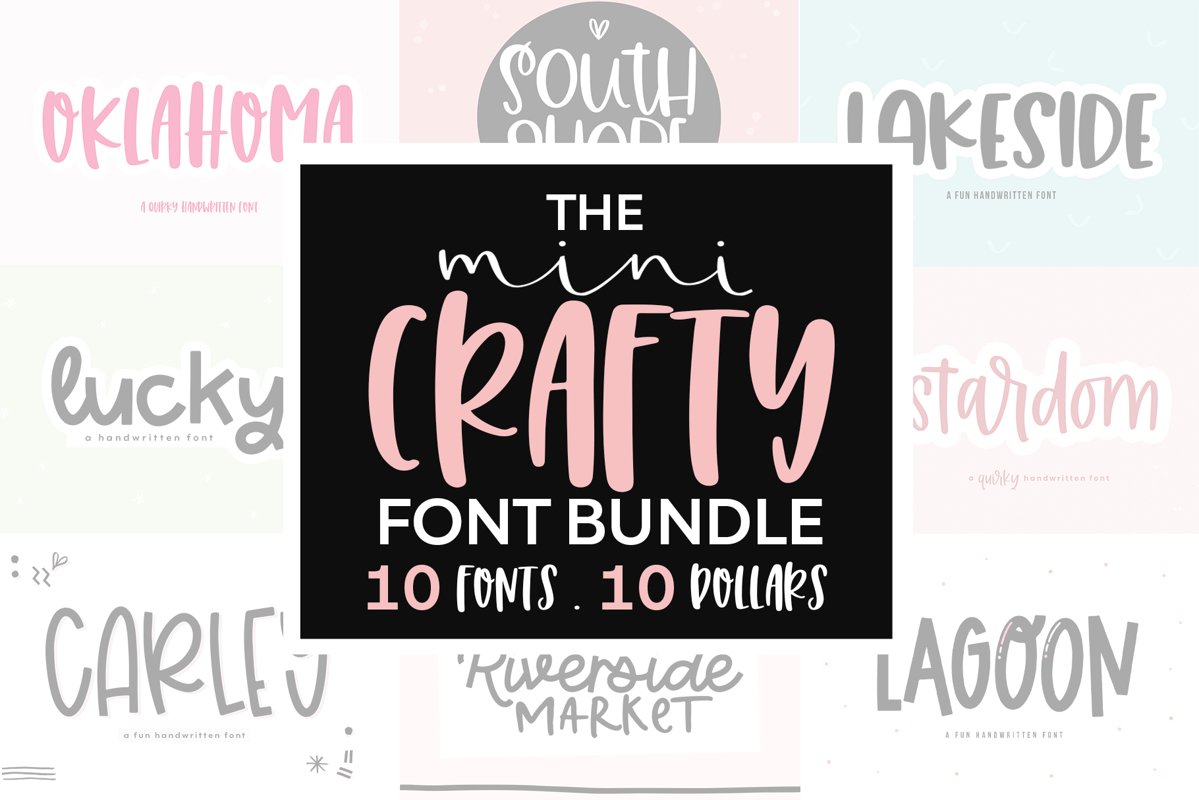
The Mini Crafty Bundle - 10 Fun & Quirky Fonts
THE MINI CRAFTY FONT BUNDLE
This bundle includes a handpicked selection of fonts, perfect for crafters!
Fonts Included:
Oklahoma
South Shore
Lakeside
Lucky
Carley
Stardom
Riverside Market Duo
California Sunrise
Lagoon